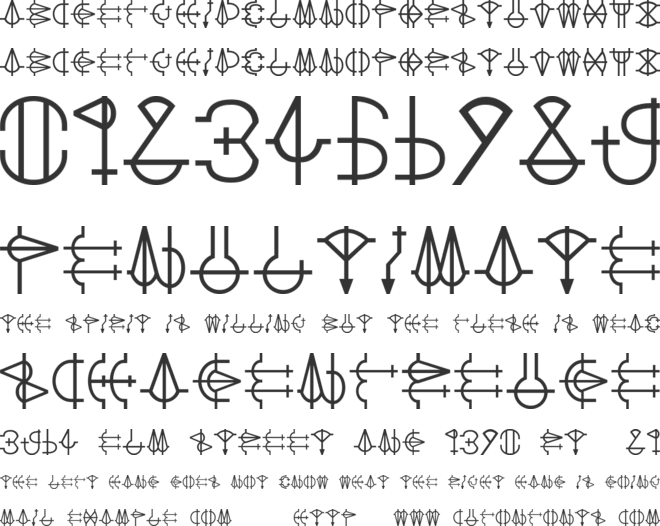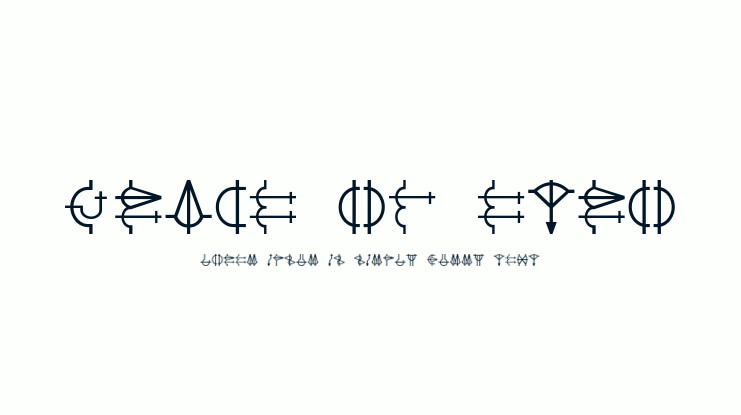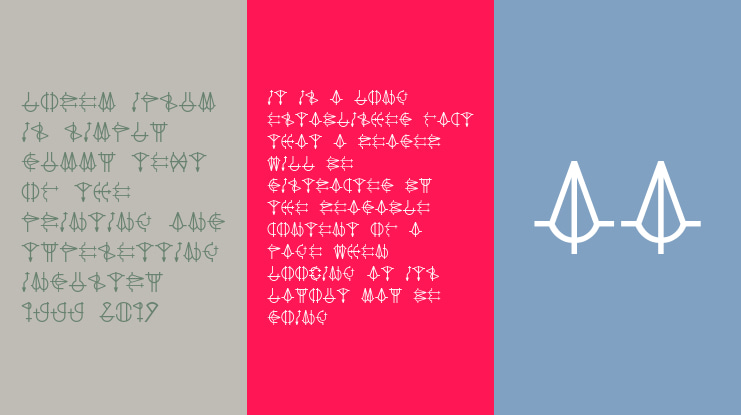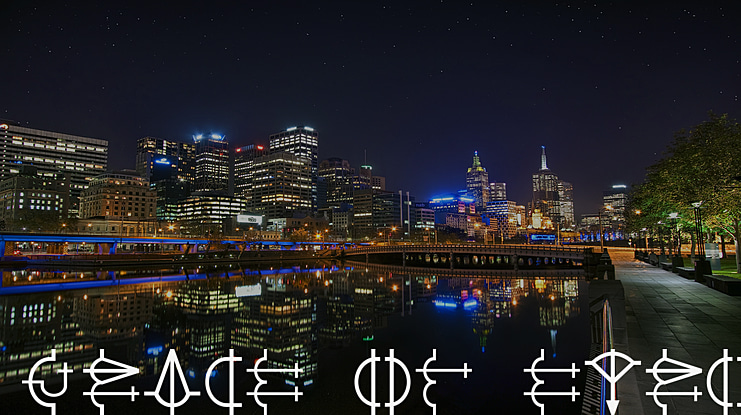
Grace of Etro Font
Font used in the video game Final Fantasy XIII - Drawn by myself but original design is © Square-Enix
Font made by El Hechicero, original from Final Fantasy 13, Copyright (c) Square Enix